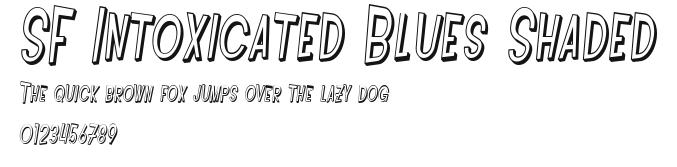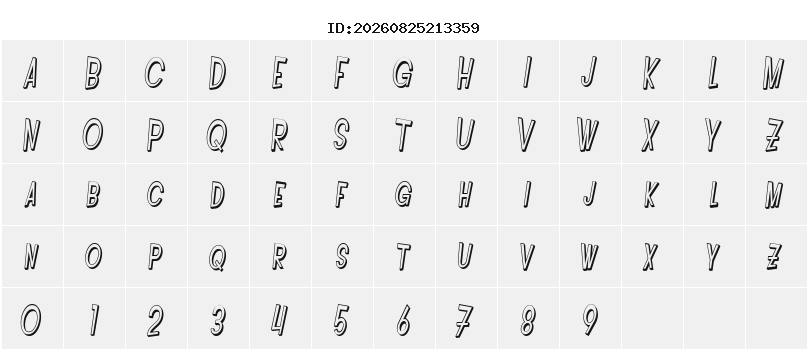
SF Intoxicated Blues Shaded Preview
• Font Name: SF Intoxicated Blues Shaded
• Font Style: Oblique
• Font ID: ShyFontsTypeFoundry: SF Intoxicated Blues Shaded Oblique: 2000
• Full Font Name: SF Intoxicated Blues Shaded Oblique
• PostScript Name: SFIntoxicatedBluesShaded-Oblique
• Character Count: 250
• Designer: ShyFonts Type Foundry
• Description: SF Intoxicated Blues Shaded Oblique is a trademark of the ShyFonts Type Foundry.
About SF Intoxicated Blues Shaded.ttf
SF Intoxicated Blues Shaded.ttf is a modern, elegant sans-serif font designed for ultimate readability and visual harmony. Perfect for branding, headlines, web design, and print materials.